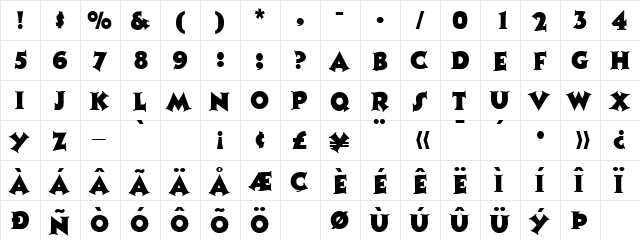
Colbert Regular
Design Context for Colbert Typeface
Colbert is a composed and adaptable typeface that performs quietly and consistently across a wide range of design contexts.